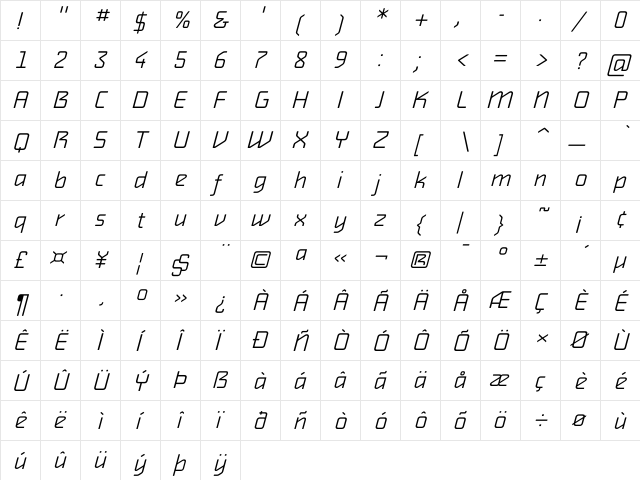
AlphavilleLight Oblique Font Preview
Design Context for AlphavilleLight Typeface
AlphavilleLight takes a measured approach to typography — its balanced proportions and neutral character make it a reliable workhorse for both digital and print work. Its italic angle brings a sense of urgency and motion to the letterforms. The delicate stroke weight brings airiness and refinement to layouts.
Pro Tip: Try AlphavilleLight for annotation and caption copy alongside an upright companion — the contrast in angle creates a dynamic but ordered typographic system.